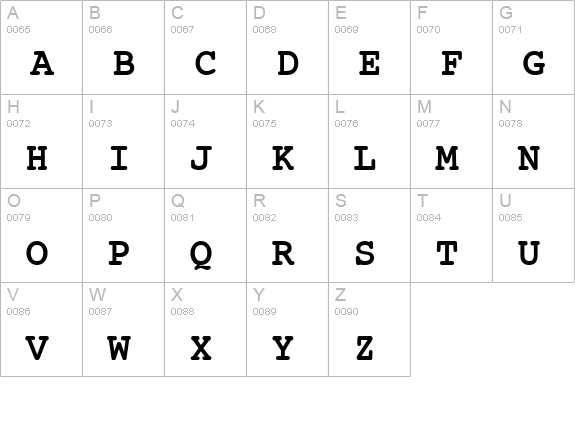
JackInput Bold Font Details
JackInput Bold is a strong, high-contrast variant in the JackInput typeface family \xE2\x80\x94 well suited to headlines, attention-grabbing titles, and strong calls-to-action.
Introducing JackInput Bold, a dynamic and eye-catching font that effortlessly captures attention with its bold and powerful presence. This font is perfect for making a bold statement in your designs, whether it be for a logo, headline, or poster. With its strong and sturdy letterforms, JackInput Bold exudes confidence and strength. Its thick strokes and sharp angles give it a modern and edgy look, making it ideal for contemporary designs. This versatile font can be used in a variety of creative projects, from branding and advertising to social media graphics and website designs. One of the best things about JackInput Bold is that it is available for free download at FontsMarket.com. Yes, you read that right - you can get your hands on this stunning font without spending a dime. Simply head over to FontsMarket.com and start using JackInput Bold in your designs today. It's the perfect way to add a touch of boldness and uniqueness to your projects, all while staying within your budget. So why wait? Download JackInput Bold now and let your creativity soar. Whether you're a professional designer or a creative enthusiast, this font is sure to become a valuable asset in your design toolkit. Don't miss out on the opportunity to enhance your designs with this bold and captivating font - get JackInput Bold for free at FontsMarket.com today!